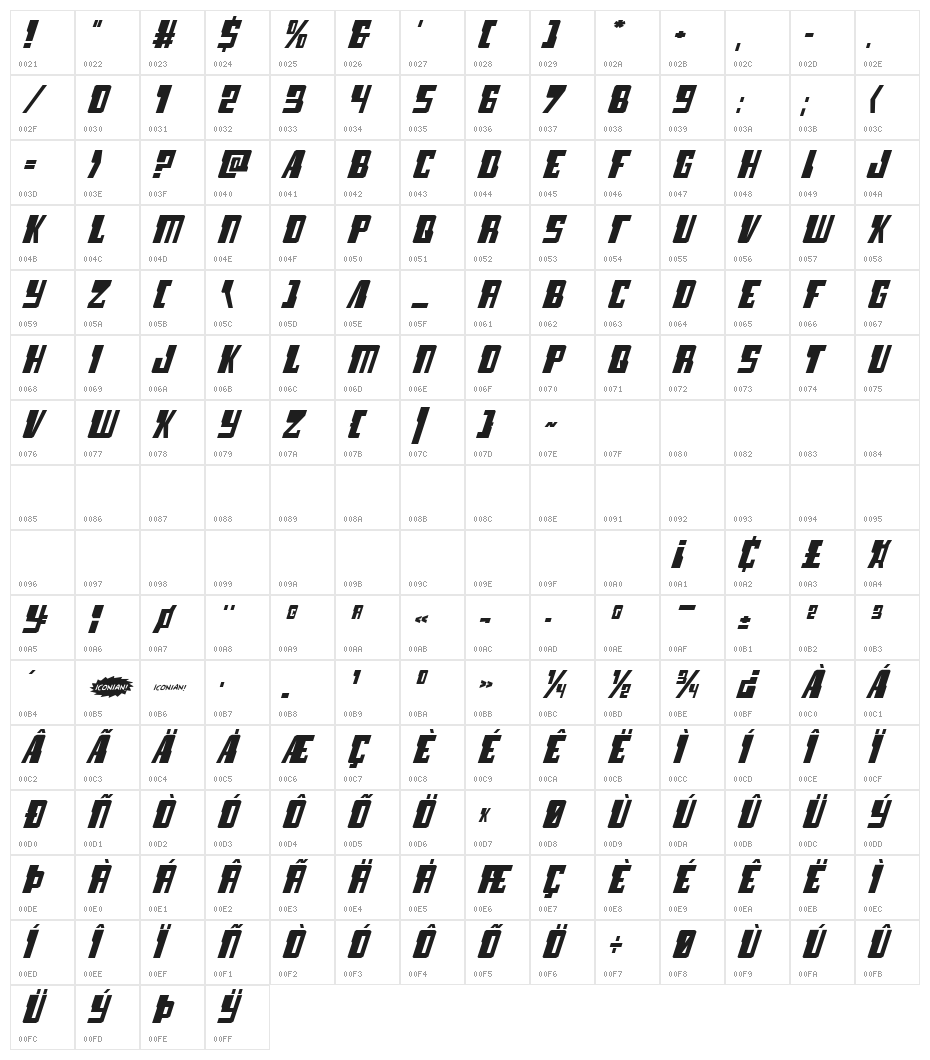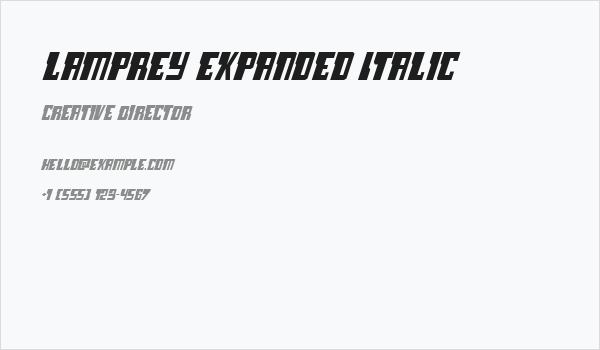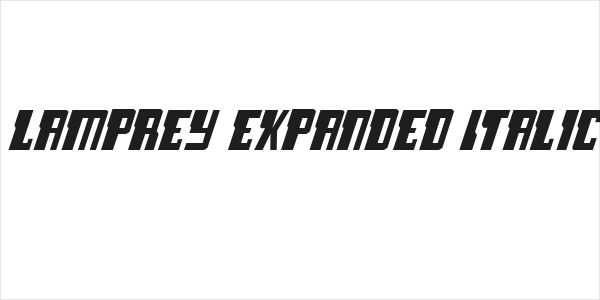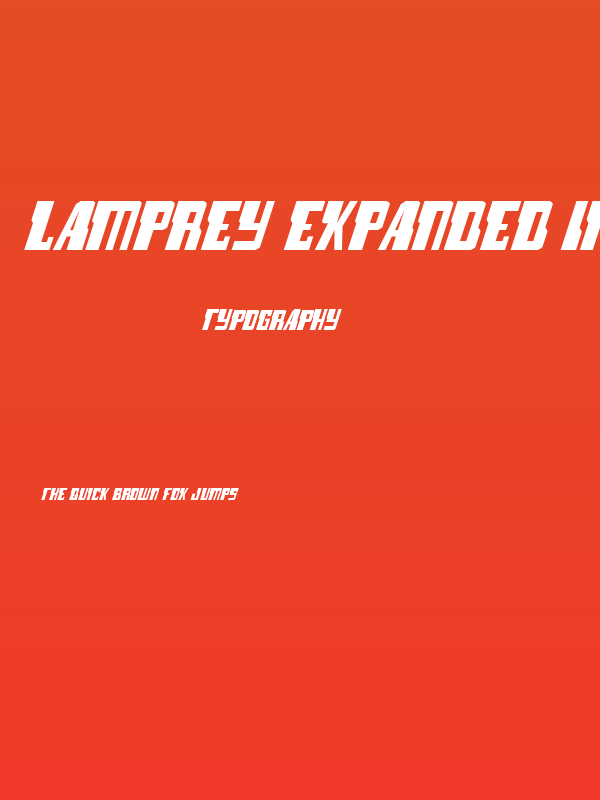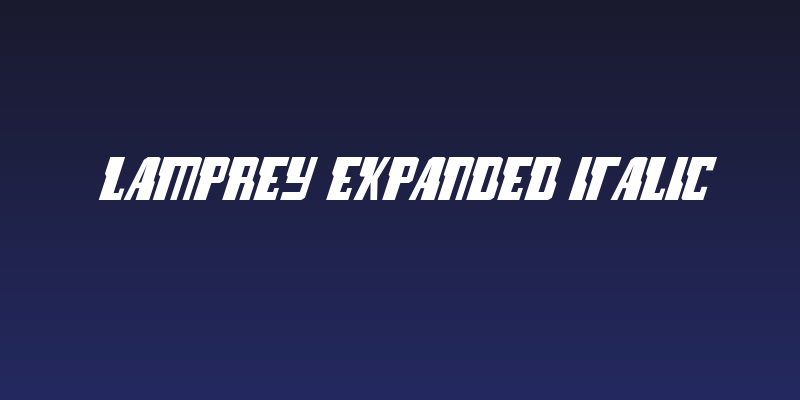
Lamprey Expanded Italic Font
Lamprey Expanded Italic Description
This font features a bold, dynamic style with a strong italic slant, giving it a sense of movement and energy. The characters are expanded, providing a wide stance that enhances readability while maintaining a unique, futuristic appearance. The sharp angles and geometric shapes contribute to its modern aesthetic, making it stand out in any design. The uppercase and lowercase letters are consistent in style, with numbers and special characters that complement the overall look. This font is ideal for projects that require a bold statement and a contemporary feel.
| Proposed Projects | Ideal for sports branding, tech-related designs, posters, and headlines that require a bold and modern touch. |